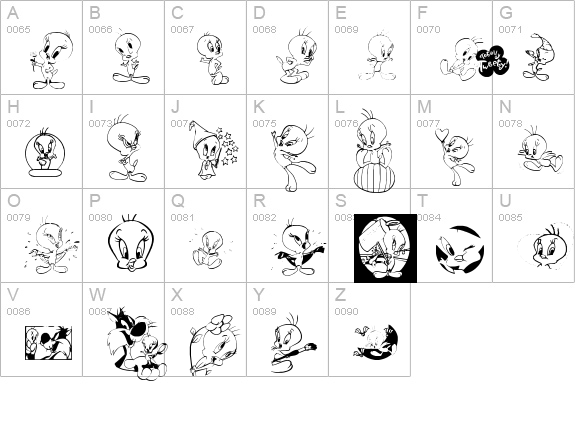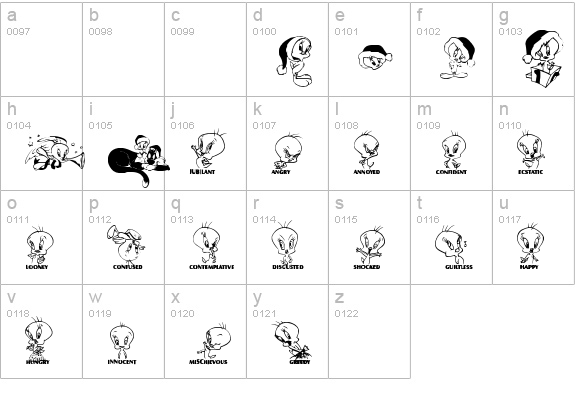
Totally Tweetie font is a delightful and whimsical typeface that is sure to bring a touch of playfulness to any design project. With its charming and unique letterforms, this font is perfect for adding a fun and friendly vibe to your designs. But what sets Totally Tweetie font apart is not just its adorable aesthetic, but also the fact that it is completely free! That's right, you can download this font without spending a dime. Whether you're a professional designer looking to add a dose of cuteness to your next project or a casual user in need of a font that exudes cheerfulness, Totally Tweetie font is the perfect choice. And the best part? Totally Tweetie font is freely available to download at FontsMarket.com. This user-friendly website offers a vast collection of high-quality fonts, and Totally Tweetie font is just one of the many gems you can find there. So why wait? Head over to FontsMarket.com and get your hands on Totally Tweetie font today! In conclusion, Totally Tweetie font is a free and fabulous font that will bring a smile to your face. Its playful and whimsical design, combined with its availability for free download at FontsMarket.com, makes it a must-have for anyone looking to add a touch of charm to their designs. So go ahead, unleash your creativity and let Totally Tweetie font take center stage in your next project!